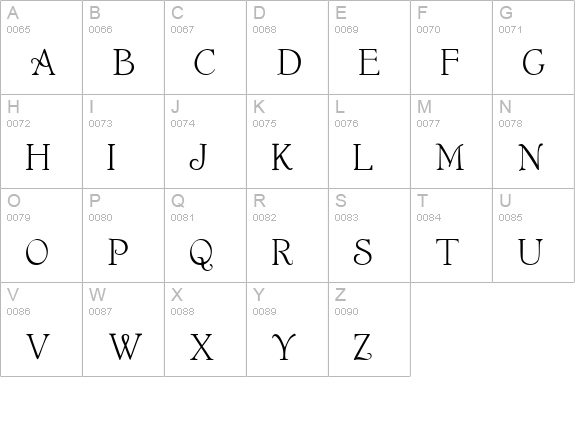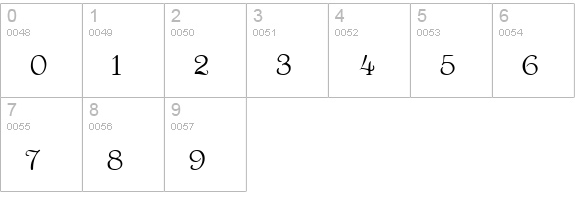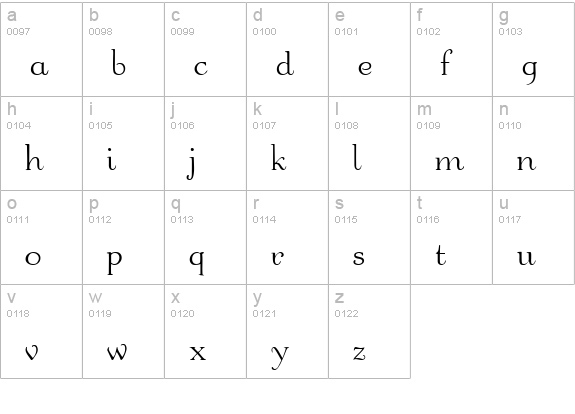
Montaigne Font Details
Montaigne font is a sophisticated and elegant typeface that exudes timeless charm and classic appeal. With its graceful curves and refined lines, Montaigne font adds a touch of sophistication to any design project. This versatile font is perfect for creating invitations, logos, branding materials, and more. The best part? Montaigne font is free to download at FontsMarket.com! Whether you're a professional designer or a casual enthusiast, you can easily access this beautiful font and add a touch of elegance to your projects. Don't miss out on the opportunity to enhance your designs with the exquisite Montaigne font – download it for free today at FontsMarket.com.